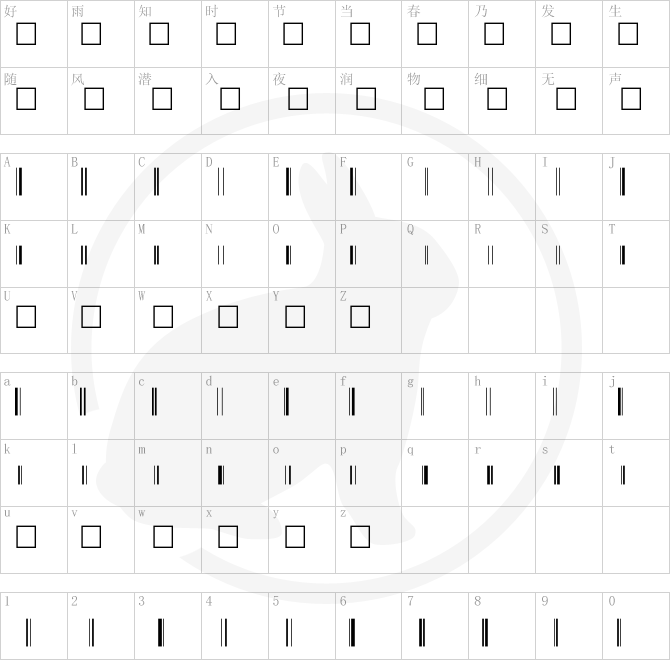
- Font Name:EanBwrP36xTt
EanBwrP36xTt.ttf is a very beautiful artistic font, EanBwrP36xTt.ttf is widely used in the design and printing of various books and pictures,EanBwrP36xTt.ttf has a strong visual impact,EanBwrP36xTt.ttf is a commonly used font in newspapers, magazines and books, and is used in posters, e-commerce Poster design, store design, logo design, font design and other fields.EanBwrP36xTt.